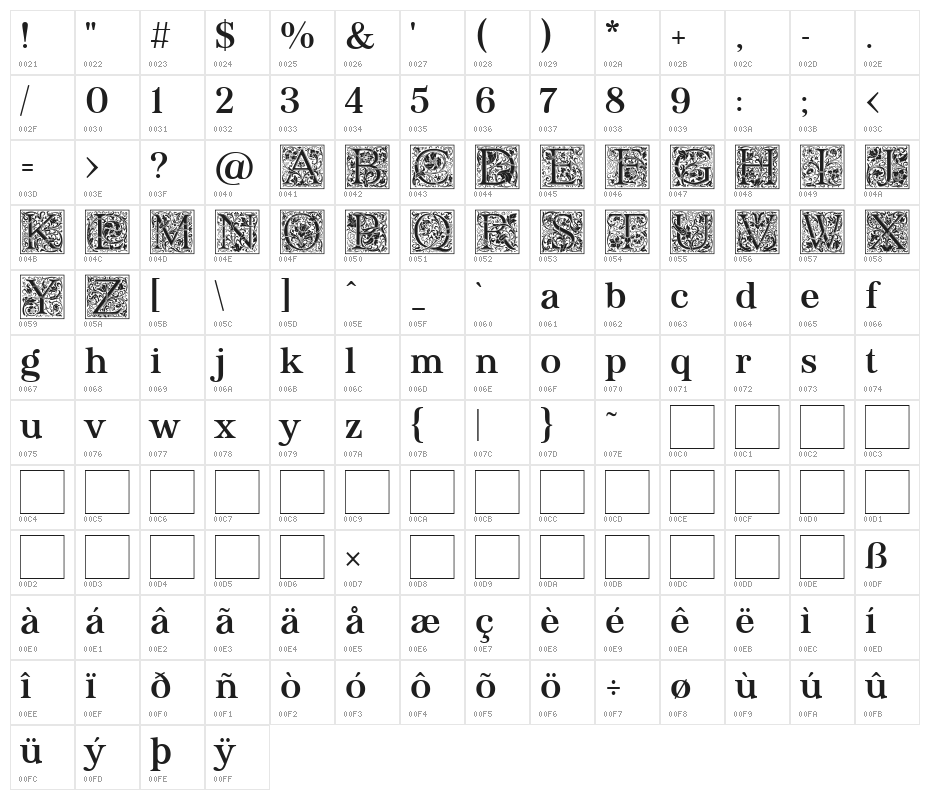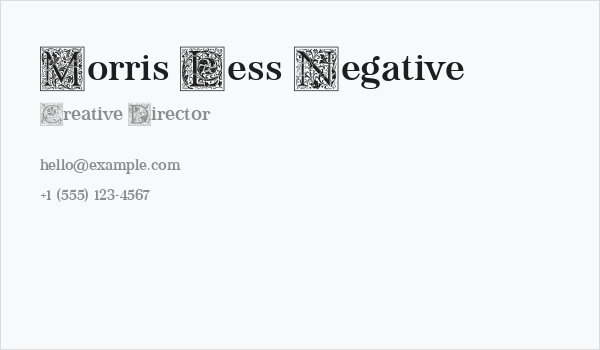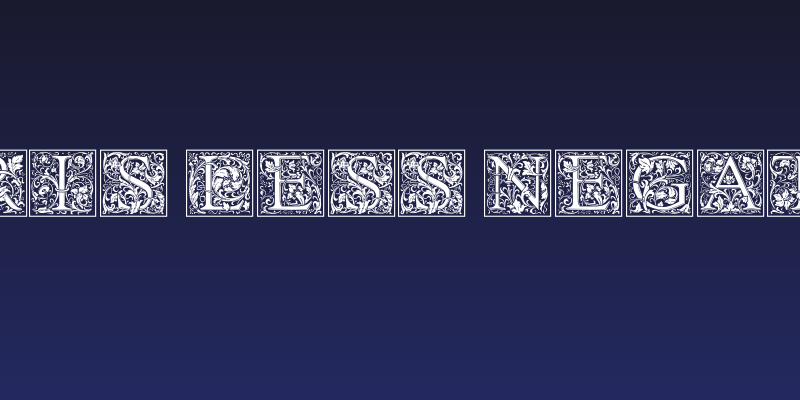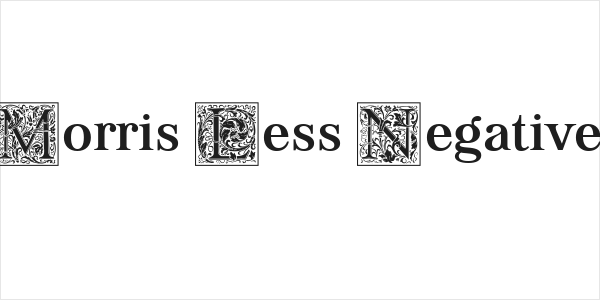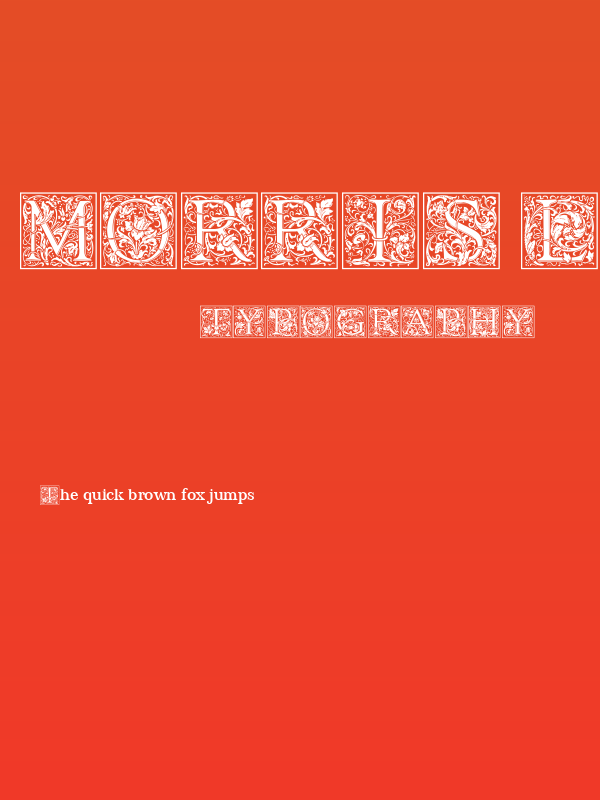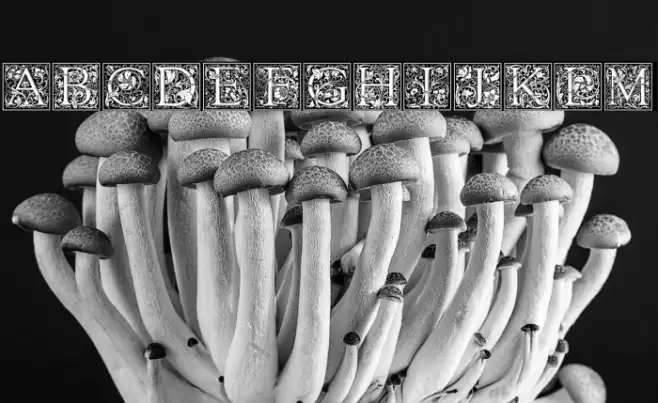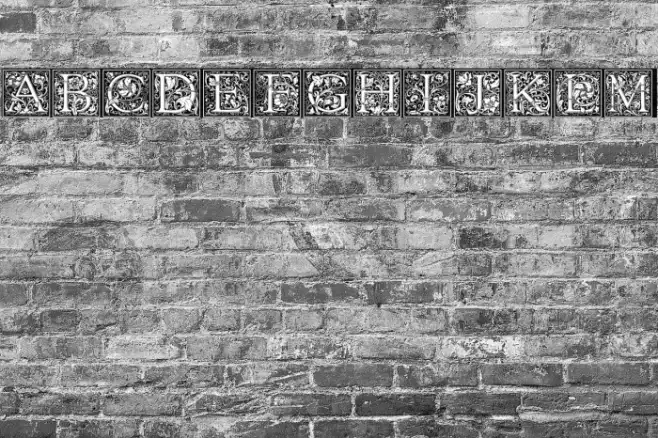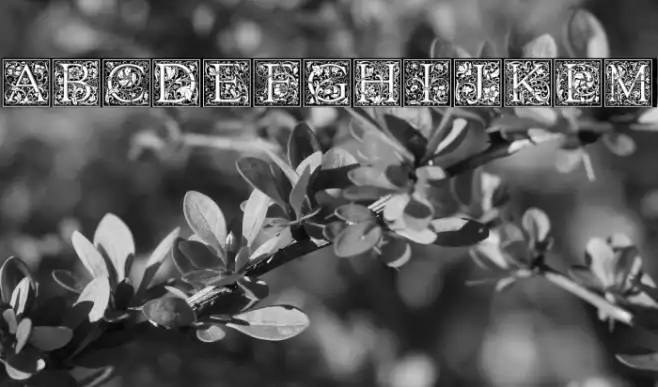
Morris Less Negative Font
Morris Less Negative Description
This font features a decorative and ornate style, particularly evident in the uppercase letters which are enclosed in intricate, floral-like designs. The lowercase letters and numerals exhibit a classic serif style, characterized by elegant and pronounced serifs that enhance readability. The overall design combines a sense of historical elegance with a modern touch, making it versatile for various design applications. The special characters maintain the serif style, ensuring consistency across the font. This blend of decorative and serif elements makes it suitable for projects that require a touch of sophistication and artistic flair.
| Proposed Projects | Ideal for wedding invitations, luxury branding, book covers, and decorative posters. |